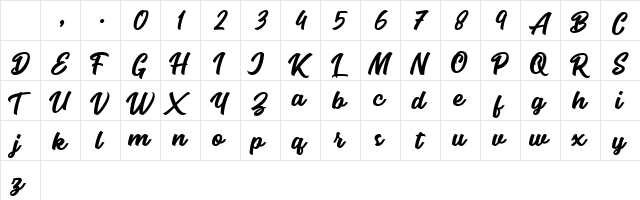
Seact Clean is a composed and adaptable typeface that performs quietly and consistently across a wide range of design contexts.
Pro Tip: Use Seact Clean in both headline and body roles to test its range before committing to a single application.